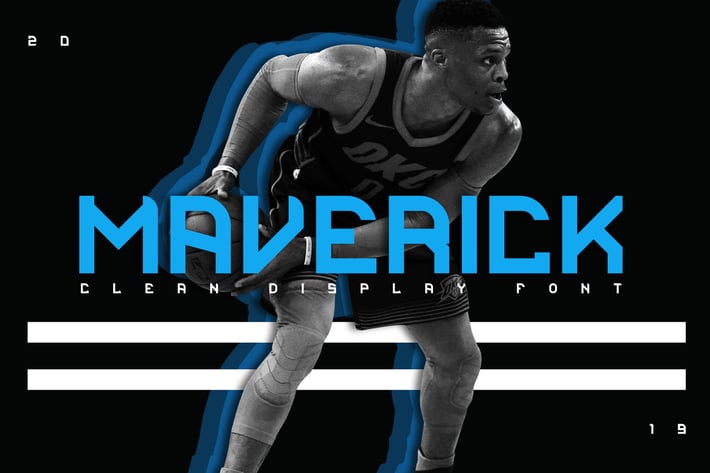
Maverick Clean Display Font
Maverick Clean Display font, is our new item that suitable for your team logo, or community logo.
Great for Logo, Sticker, Jersey, Invitation Card, Brochure, etc.